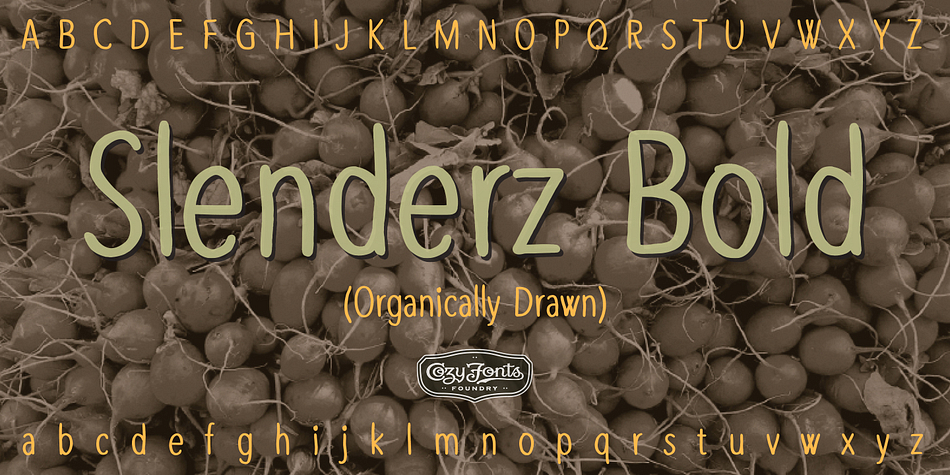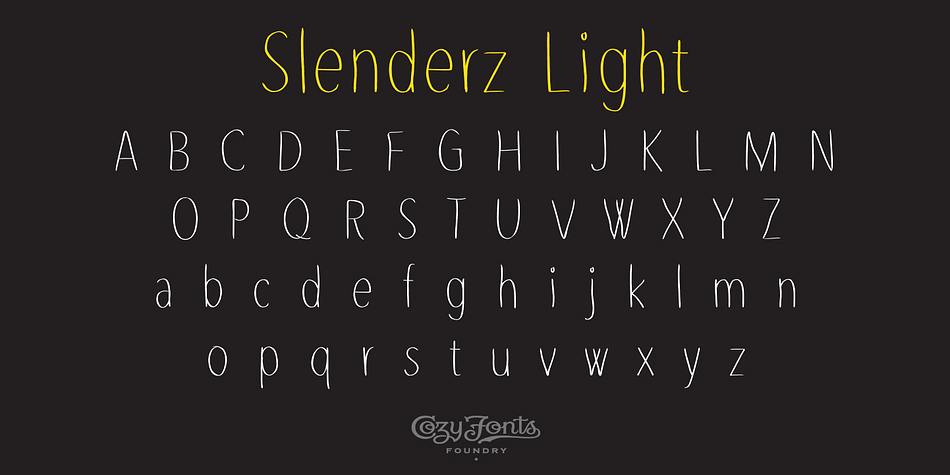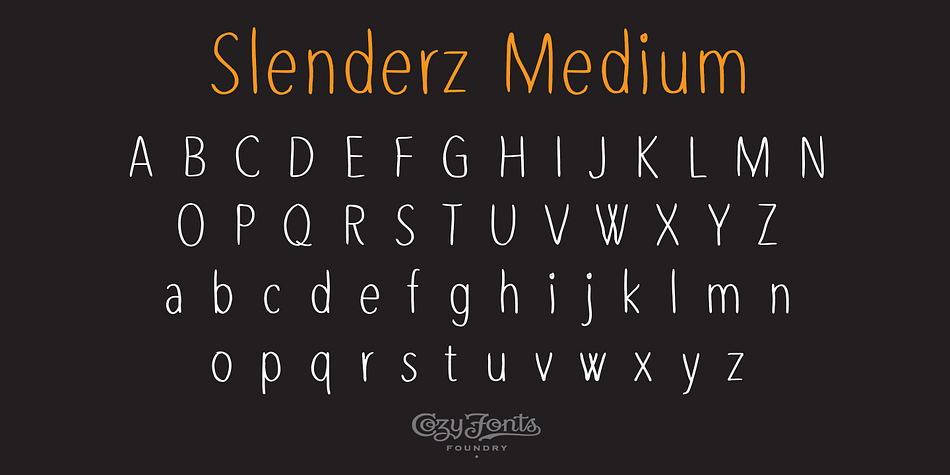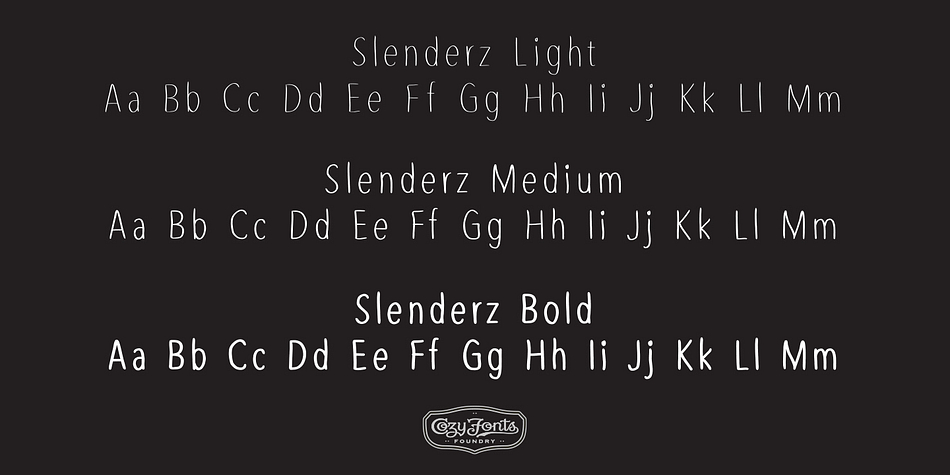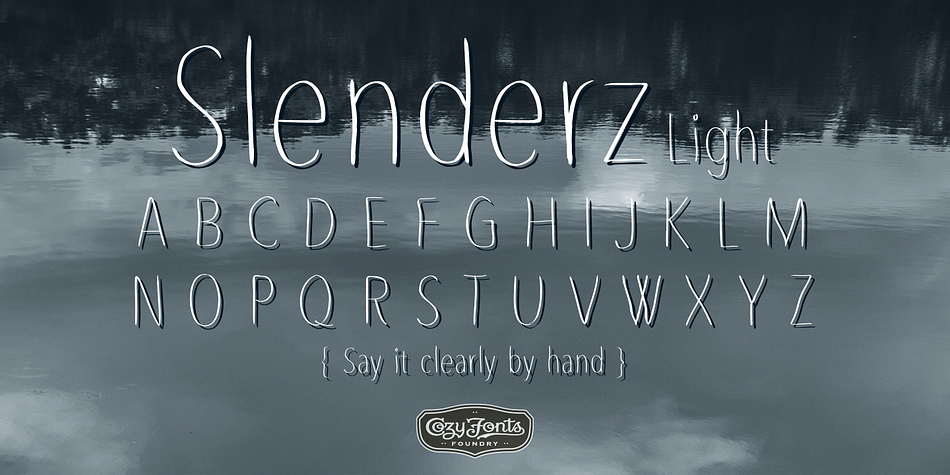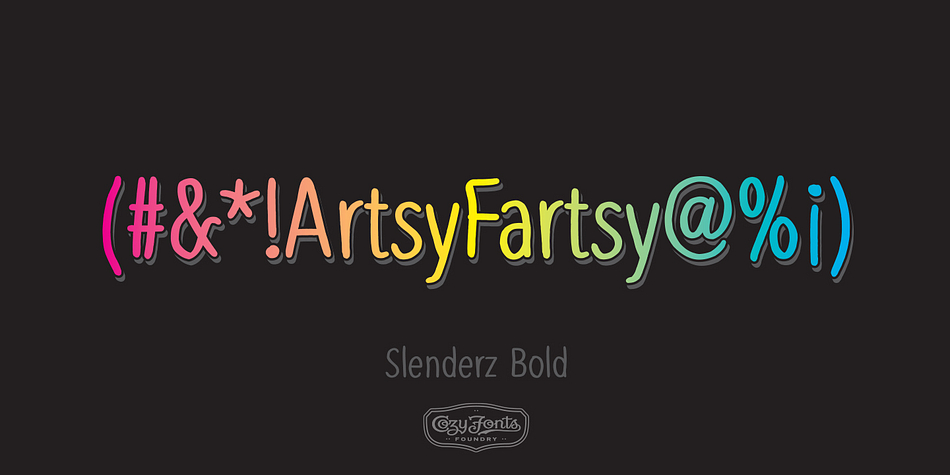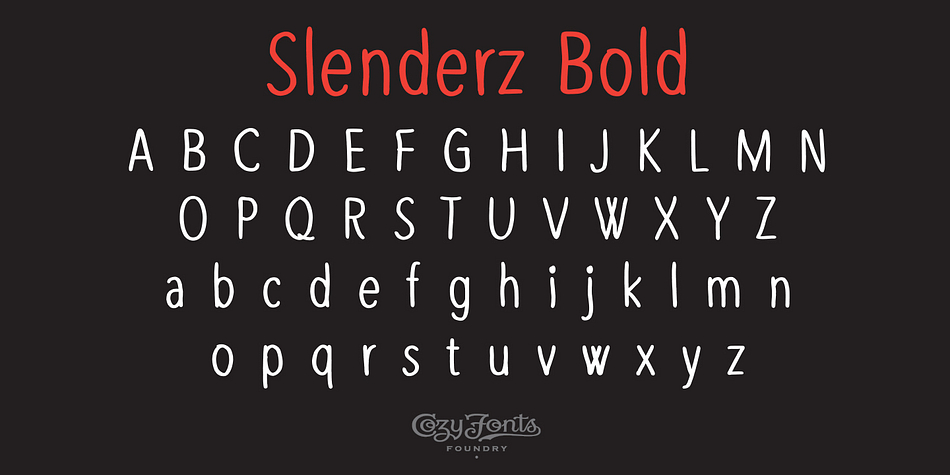
Designed by Tom Nikosey, Slenderz is a hand drawn font family. This typeface has three styles and was published by CozyFonts Foundry.
Slenderz is a handwritten font designed by Tom Nikosey, an American Graphic Designer specializing in Typographic Design and Illustration. Slenderz is available in Light, Medium & Bold weights
CozyFonts Foundry is Tom’s intro into the world of font design.
Slenderz is a casual, handwritten font that gives a reserved yet firm and legible personality to any headline or copy. Each of the 3 weights has it’s own personality yet like 3 brothers they represent the and belong to the same family. Intermixing Light & Bold or Medium & Bold won’t ruin the flow but will enhance it. Slenderz is the 9th font family from CozyFonts Foundry.